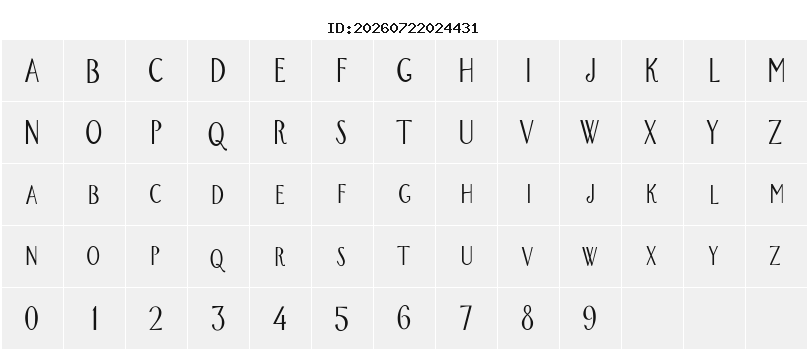
FZ BASIC 26 COND Preview
About FZ BASIC 26 COND.ttf
FZ BASIC 26 COND.ttf is a modern, elegant sans-serif font designed for ultimate readability and visual harmony. Perfect for branding, headlines, web design, and print materials.